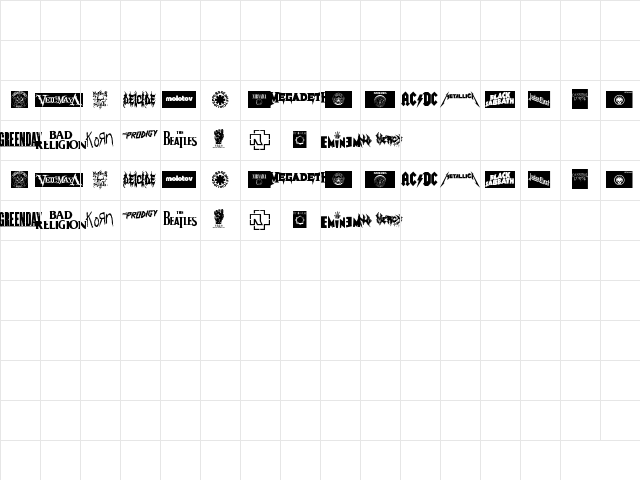
MUSIC LOGOS TFB Regular
Designer: kaiser zhar khan
Design Context for MUSIC LOGOS TFB
MUSIC LOGOS TFB is a composed and adaptable typeface that performs quietly and consistently across a wide range of design contexts.